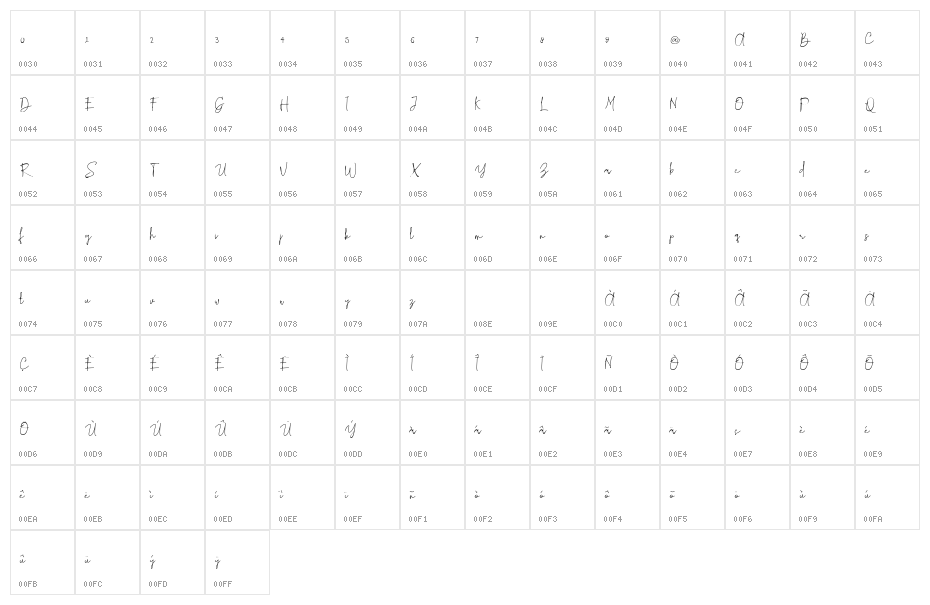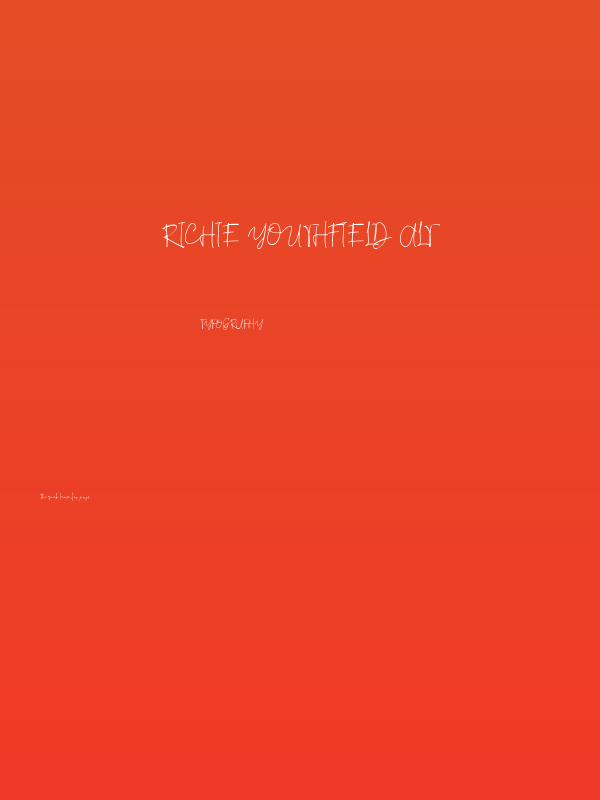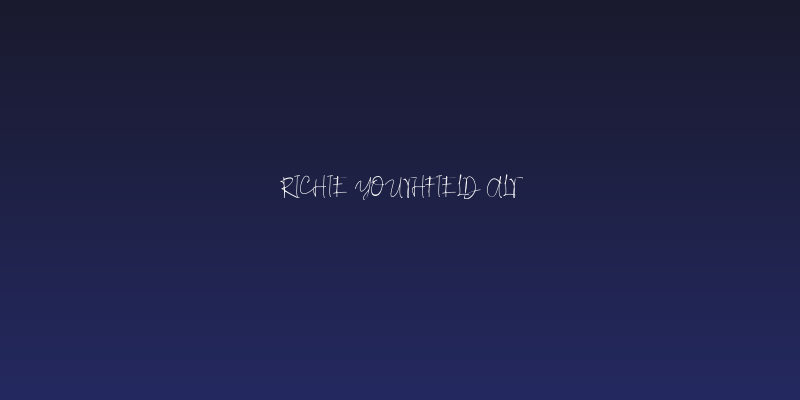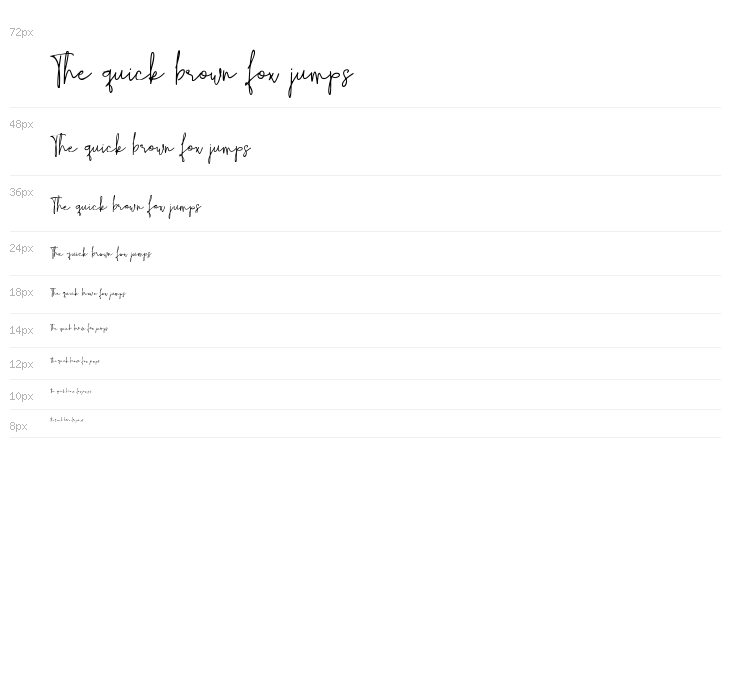
Richie Youthfield Alt Font
Richie Youthfield Alt Description
This font exhibits a playful and whimsical handwritten style, characterized by its flowing, cursive letterforms. The strokes are uneven, giving it a natural and organic feel, reminiscent of casual handwriting. The uppercase letters are bold and expressive, while the lowercase letters maintain a consistent fluidity. The numerals are clear and legible, complementing the overall aesthetic. Special characters are integrated seamlessly, maintaining the font's cohesive look. This font's unique style makes it suitable for creative and informal applications.
| Proposed Projects | Ideal for greeting cards, invitations, personal branding, and creative projects. |